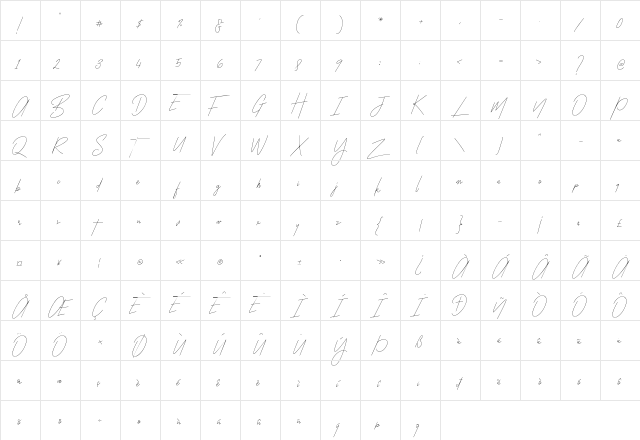
Miyake Regular
Design Context for Miyake Typeface
Miyake takes a measured approach to typography — its balanced proportions and neutral character make it a reliable workhorse for both digital and print work.